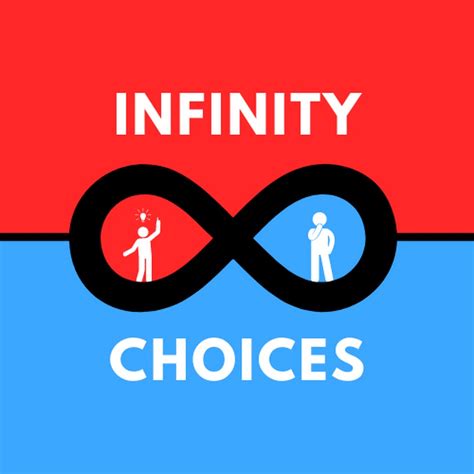
Infinity Logo Font: Top Choices
Hey guys! Ever looked at a brand’s logo and just felt that oomph ? You know, the one that makes it instantly recognizable and super memorable? A huge part of that magic is often the font choice. Today, we’re diving deep into the world of infinity logo fonts . We’ll explore why they’re so popular, what makes a font work for an infinity symbol, and share some of our absolute favorite picks that you can use to give your brand that timeless, elegant, or even futuristic vibe. Getting the right font isn’t just about making things look pretty; it’s about conveying a message, a feeling, and a story. The infinity symbol itself is loaded with meaning – think eternity, endlessness, empowerment, and everlasting love. So, when you pair it with the right font, you’re amplifying that message tenfold. Whether you’re designing a logo for a jewelry brand, a wellness service, a tech startup, or even a personal project, the font you choose will significantly impact how your audience perceives it. We’re going to break down what to look for, common pitfalls to avoid, and give you a solid list of go-to fonts that nail the infinity logo aesthetic. So grab your favorite beverage, get comfy, and let’s find that perfect font that screams ‘forever’!
Why Choose an Infinity Logo Font?
So, why is the infinity logo font such a big deal, you ask? Well, the infinity symbol, guys, is a universally recognized icon that carries a ton of weight. Its continuous loop represents endlessness, eternity, empowerment, and limitless possibilities . Think about it: this simple, elegant shape can convey concepts like everlasting love in a wedding logo, perpetual growth in a business, or boundless energy in a fitness brand. When you’re looking to imbue your brand with these powerful meanings, selecting the right font to complement the infinity symbol is absolutely crucial . A poorly chosen font can cheapen the symbol’s impact, making it look dated or unprofessional. On the other hand, a well-matched font elevates the symbol, creating a cohesive and compelling visual identity. It’s all about creating that instant connection and communicating your brand’s core values without saying a word. For instance, a sleek, modern sans-serif font can give an infinity logo a sophisticated and forward-thinking feel, perfect for a tech company. Conversely, a delicate script font might add a touch of romance and timelessness, ideal for a bridal boutique or a luxury spa. The font you choose acts as a silent narrator, whispering the story of your brand. It influences perception, builds trust, and helps you stand out in a crowded marketplace. We’re talking about creating a visual language that resonates with your target audience on a deeper level. It’s not just about aesthetics; it’s about strategic design choices that drive brand recognition and loyalty. The infinity logo font isn’t just a trend; it’s a timeless choice for brands that want to communicate enduring values and infinite potential. It’s a symbol that has transcended cultures and eras, and with the right typographic treatment, your logo can achieve the same lasting impact. So, when you’re in the process of branding, really think about the message you want to send and how typography can help you achieve that. The goal is to create something that feels both unique and universally understood, and the infinity symbol, paired with the perfect font, is a fantastic way to achieve that.
Key Elements of a Great Infinity Logo Font
Alright, let’s break down what makes an infinity logo font truly shine. It’s not just about picking something that looks cool; there are several key elements you need to consider to ensure your logo is effective and memorable. First up, clarity and legibility . No matter how fancy or artistic a font is, if people can’t read it easily, it’s a fail. This is especially important for logos that might be used at small sizes, like on business cards or app icons. The strokes need to be distinct, and the overall shape of the letters should be clear. Think about how the font interacts with the infinity symbol itself. Does it feel balanced? Does it enhance the symbol’s flow, or does it create a visual clash? We want harmony, guys! Next, consider the style and personality of the font. Does it align with your brand’s identity? If you’re a playful, energetic brand, a bold, rounded font might be perfect. If you’re aiming for sophistication and luxury, a clean, minimalist sans-serif or an elegant serif could be the way to go. The font should be an extension of your brand’s voice. We’re talking about a font that whispers elegance, shouts innovation, or embraces tradition, depending on your brand. Another critical factor is versatility . A great logo font needs to work across various mediums and applications. This means it should look good on digital platforms, print materials, merchandise, and even large-scale signage. Test it out in black and white, in different sizes, and on different backgrounds to ensure it holds up. You don’t want a font that looks amazing on your website but becomes illegible on a t-shirt, right? Uniqueness is also key. While you want your font to be legible and align with your brand, you also want it to stand out. Avoid overly common or generic fonts that might make your logo blend in with the competition. Look for fonts with subtle details or distinctive characteristics that give your logo a memorable edge. Finally, think about the symbol-font relationship . How do the curves of the infinity symbol play with the curves or sharp edges of the letters? Sometimes, a font with similar flowing lines can create a beautiful synergy. Other times, a contrasting font can create an interesting dynamic. It’s about finding that sweet spot where the font and the symbol enhance each other, creating a powerful and cohesive visual story. So, when you’re sifting through font options, keep these elements in mind. It’s a blend of art and science, and getting it right will make all the difference for your infinity logo font .
Top Font Categories for Infinity Logos
When you’re hunting for the perfect infinity logo font , it’s super helpful to think in categories. Different styles of fonts evoke different feelings and are suited for different types of brands. Let’s explore some of the most popular and effective categories, guys!
Sans-Serif Fonts: Modern & Clean
First up, we’ve got sans-serif fonts . These fonts are characterized by their lack of serifs (those little decorative strokes at the ends of letters). Think clean lines, minimalist design, and a very modern feel. Sans-serifs are fantastic for infinity logos because they often have a sleek, straightforward appearance that complements the elegant simplicity of the infinity symbol. They convey professionalism, efficiency, and approachability . Brands looking to project a contemporary image, like tech companies, startups, or modern wellness businesses, often gravitate towards sans-serifs. Imagine an infinity symbol paired with a font like Montserrat , Lato , or Open Sans . They create a sense of clarity and forward-thinking. They’re also incredibly versatile, looking sharp on screens, in print, and at any size. The geometric shapes in many sans-serifs can also echo the smooth curves of the infinity loop, creating a really cohesive look. If your brand is about innovation, directness, and a clean aesthetic, a sans-serif infinity logo font is definitely the way to go. It’s like a crisp, well-tailored suit for your brand – always in style and always makes a statement of competence. You can go with a bold, geometric sans-serif for a strong, impactful look, or a lighter, more humanist sans-serif for a friendlier, softer feel. The key is that it avoids fuss and gets straight to the point, much like the elegant, continuous line of the infinity symbol itself. It’s a go-to for a reason, offering a timeless appeal that doesn’t get bogged down by trends.
Serif Fonts: Classic & Elegant
Next, let’s talk about serif fonts . These are the ones with the little feet or decorative strokes – think Times New Roman or Garamond . Serif fonts exude a sense of tradition, sophistication, trustworthiness, and authority . They have a classic, timeless appeal that can lend a lot of gravitas to an infinity logo. If your brand is about heritage, luxury, or conveying a sense of established reliability, a serif font might be your perfect match. For an infinity logo, a serif font can add a touch of refined elegance. Imagine an infinity symbol paired with a font like Playfair Display , Merriweather , or Lora . These fonts have a certain je ne sais quoi that feels established and luxurious. They can make an infinity logo feel more formal and established, which is perfect for brands in the legal, financial, or high-end retail sectors. The serifs themselves can sometimes echo the delicate curves or points found in certain iterations of the infinity symbol, creating a subtle visual harmony. While sans-serifs are all about modernity, serifs speak of enduring quality and craftsmanship. They bring a sense of history and substance to the design. When choosing a serif font for your infinity logo, pay attention to the weight and style. A delicate, high-contrast serif can feel very luxurious, while a more robust, traditional serif can convey strength and reliability. It’s all about striking that balance to ensure the font complements, rather than competes with, the infinity symbol. A well-chosen serif infinity logo font can make your brand feel instantly more established and credible, offering a comforting sense of permanence that aligns beautifully with the symbol’s meaning.
Script Fonts: Personal & Flowing
Now, for something a bit more expressive: script fonts . These fonts mimic handwriting and cursive, and they bring a unique sense of personal touch, artistry, and elegance . Script fonts are amazing for infinity logos when you want to convey warmth, intimacy, or a handcrafted feel. Think about wedding invitations, artisanal products, or personal brands – script fonts just work . They have a natural flow and movement that can beautifully complement the continuous loop of the infinity symbol. Imagine an infinity symbol paired with a flowing script like Great Vibes , Allura , or Dancing Script . These fonts can add a touch of romance, creativity, or a friendly, approachable vibe. They make the logo feel more human and less corporate. However, with script fonts, legibility is super important, guys. Some scripts can be quite elaborate and hard to read, especially at smaller sizes. You need to find a balance between artistic flair and clarity. Look for scripts that have a clear, flowing character without being overly ornate. They should feel natural and effortless, like a signature. A script infinity logo font can be perfect for brands that want to emphasize personal connection, creativity, or a touch of luxury that feels more intimate. They add a layer of personality that blockier fonts might not achieve. It’s like giving your brand a personal handshake and a warm smile. The fluidity of script fonts can also visually enhance the endless nature of the infinity symbol, creating a truly captivating and elegant mark. Just be sure to test it thoroughly to ensure it reads well across all applications!
Decorative & Display Fonts: Bold & Unique
Finally, we have decorative or display fonts . These are the fonts that are designed to make a statement. They are often highly stylized, unique, and meant for use in headlines or logos where they can really grab attention. When it comes to an infinity logo font , decorative fonts can be incredibly powerful for creating a unique and memorable brand identity. They can range from vintage-inspired scripts to futuristic, geometric designs, or even fonts with unique textures and embellishments. The key here is impact and memorability . These fonts are all about personality and standing out from the crowd. Think of fonts that have a very specific aesthetic – perhaps a retro vibe, a futuristic sci-fi feel, or an artsy, hand-drawn quality. They are perfect for brands that want to be bold, unconventional, and leave a strong impression. For instance, a geometric display font with sharp angles could contrast interestingly with the smooth curves of an infinity symbol, creating a modern, edgy look. Or a vintage-inspired font could give an infinity logo a sense of timeless charm and nostalgia. However, similar to script fonts, legibility can be a challenge with some decorative fonts. They are often more about visual impact than reading lengthy text. You need to be discerning and ensure that the font, while unique, still allows the infinity symbol and any accompanying text to be easily recognized. It’s essential that the decorative element enhances the infinity concept rather than obscuring it. A well-chosen decorative infinity logo font can make your brand instantly recognizable and give it a distinctive personality that truly sets it apart. It’s the font equivalent of a statement piece of jewelry – eye-catching and full of character.
Tips for Choosing Your Infinity Logo Font
So, you’ve got a better grasp of the different font styles out there for your infinity logo font . Now, let’s talk practical tips to help you make the perfect choice. Choosing a font isn’t just about personal preference; it’s a strategic decision that impacts your brand’s perception. Guys, trust me on this one, taking a little extra time here will save you headaches down the line.
Consider Your Target Audience
First and foremost, always consider your target audience . Who are you trying to reach with your brand? Are they young and trendy, or more mature and traditional? Do they value luxury, affordability, or innovation? The font you choose should resonate with them. A font that appeals to teenagers might not be the best fit for a luxury financial service, and vice versa. Think about the psychological impact of different fonts. For example, rounded fonts often feel friendlier and more approachable, while sharp, angular fonts can convey power and dynamism. If your audience appreciates elegance and sophistication, you’ll want to lean towards classic serifs or refined sans-serifs. If they’re looking for something cutting-edge and exciting, bolder, more modern display fonts might be the ticket. Your infinity logo font is a key communication tool, and it needs to speak their language. Research your audience, look at brands they admire, and choose a font that aligns with their aesthetic preferences and values. It’s about creating an instant connection and making them feel understood. This step is non-negotiable, guys; it’s the foundation of good branding.
Test, Test, and Test Again!
Seriously, guys, test your chosen font extensively . Don’t just pick a font you like on your screen and call it a day. Mock up your logo with the infinity symbol and the font in various sizes and contexts. How does it look on a tiny favicon? How about on a large banner? Does it remain legible in black and white? What about on a colored background? Some fonts that look great in large sizes can become completely unreadable when scaled down, and others might lose their impact when flattened into a single color. Use online tools or design software to create mockups. Print out your logo designs and look at them in person. Ask for feedback from others, especially people who represent your target audience. A font might look perfect to you, but it might not convey the right message to potential customers. Pay attention to how the spacing between letters (kerning) and lines (leading) looks. Sometimes, a few minor adjustments can make a world of difference. Remember, the goal is for your infinity logo font to be effective everywhere your brand appears. Thorough testing ensures you won’t encounter any nasty surprises later on.
Ensure Font Licensing is Clear
This is a biggie, especially if you’re building a business: always ensure you have the correct font licensing . Many fonts, especially free ones, come with specific usage restrictions. Some are free for personal use only, while others allow commercial use but might require attribution or a paid license for certain applications (like use in a logo for a business). Using a font illegally can lead to legal trouble, hefty fines, and damage to your brand’s reputation. Before you commit to a font for your infinity logo, check its license agreement carefully. Websites like Google Fonts offer free, open-source fonts with very permissive licenses. For premium fonts, purchase them directly from the font foundry or reputable marketplaces. If you’re unsure about the licensing terms, don’t hesitate to contact the font designer or vendor for clarification. It might seem like a small detail, but proper licensing is crucial for protecting your business and ensuring you have the legal right to use the font in your branding. Think of it as protecting your brand’s future. Getting the licensing right from the start means you can use your infinity logo font with confidence, knowing you’re covered legally.
Keep It Timeless
While it’s tempting to jump on the latest typographic trends, strive for timelessness in your infinity logo font choice. Trends come and go, but a good logo should last for years, if not decades. A font that feels cutting-edge today might look dated in a few years. The infinity symbol itself is timeless, so pairing it with a font that also has enduring appeal will create a logo that remains relevant and impactful over time. Classic sans-serifs, elegant serifs, and well-crafted script fonts often have a longer shelf life than overly stylized or trendy display fonts. Ask yourself: Will this font still look good in 5, 10, or even 20 years? If the answer is uncertain, it might be worth exploring other options. A timeless font choice ensures that your brand identity remains strong and consistent, avoiding the need for frequent, costly logo redesigns. It builds brand equity and recognition over the long haul. Aim for a design that feels classic yet contemporary, striking a balance that allows it to age gracefully. This thoughtful approach to font selection contributes significantly to a brand’s enduring legacy.
To give you some concrete ideas, let’s look at some real-world examples and font styles that work exceptionally well for infinity logos. These aren’t just random picks; they’ve been chosen because they either complement the symbol’s meaning, enhance its visual appeal, or offer that perfect blend of style and legibility we talked about, guys!
Minimalist Sans-Serifs
When you want your infinity symbol to speak volumes with subtle elegance, minimalist sans-serifs are your best bet. Think clean, uncomplicated lines that let the symbol itself take center stage. Fonts like Lato , Montserrat , and Open Sans are fantastic examples. They offer excellent readability and a modern, approachable feel. For an infinity logo, these fonts create a sense of clarity and efficiency. Imagine an infinity symbol rendered in a light or regular weight of Lato, paired with the brand name. It feels clean, professional, and trustworthy – perfect for wellness brands, tech startups, or businesses focused on simplicity and directness. Montserrat , with its geometric construction, can give the logo a slightly more structured, urban feel. Open Sans is known for its neutral, highly legible appearance, making it a safe and effective choice for almost any application. The beauty of these minimalist sans-serifs is their versatility; they don’t overpower the infinity symbol but rather support it, creating a harmonious and timeless mark. They convey that your brand is modern, no-nonsense, and focused on delivering value. It’s the typographic equivalent of a perfectly brewed cup of coffee – simple, essential, and deeply satisfying.
Elegant Serifs
For brands aiming for a touch of luxury, tradition, or timeless sophistication, elegant serif fonts are a superb choice. These fonts add a layer of refinement and gravitas. Consider fonts like Playfair Display , Lora , or Garamond . Playfair Display , with its high contrast between thick and thin strokes, lends a very luxurious and classic feel, ideal for jewelry brands or high-end fashion. Imagine it paired with a delicate infinity symbol – it screams opulence and timeless style. Lora offers a more contemporary take on serif, balancing tradition with a modern sensibility, making it suitable for lifestyle brands or editorial content. Garamond , a classic for centuries, brings an air of established authority and intellectual depth, fitting for educational institutions or heritage brands. These serif fonts can make an infinity logo feel more grounded, reliable, and sophisticated. They communicate a sense of heritage, quality craftsmanship, and enduring value, aligning perfectly with the eternal nature of the infinity symbol. They are the typographic equivalent of a perfectly aged wine – rich, complex, and full of character.
Flowing Scripts
If your brand identity is built around personal connection, romance, or artistic expression, flowing script fonts can be incredibly effective. They add warmth and a unique personality. Take Great Vibes , Allura , or Dancing Script as examples. Great Vibes has a beautiful, elegant flow that’s perfect for wedding planners, calligraphy artists, or luxury gift companies. It evokes romance and bespoke craftsmanship. Allura is another popular choice, offering a slightly more modern and clean script feel, yet still maintaining that personal, flowing quality. Dancing Script is a bit more playful and casual, suitable for brands that want to convey a friendly, approachable, and creative vibe. When using a script infinity logo font , make sure the readability is maintained. The goal is to enhance the infinity symbol with a sense of movement and personal touch, not to make it hard to read. These fonts are fantastic for brands that want to feel intimate, handcrafted, and emotionally resonant. They’re like a handwritten note from a friend – warm, personal, and full of heart.
Unique Display Fonts
Finally, for brands that want to make a bold statement and truly stand out, unique display fonts offer endless possibilities. These are fonts that are designed to be noticed. Think fonts with distinctive character, perhaps a retro flair, a futuristic edge, or an artistic twist. Examples could range from bold, geometric display fonts to custom-designed lettering. A display font can help define a brand’s niche and personality immediately. For instance, a brand focused on extreme sports might use a rugged, impactful display font, while a futuristic tech company might opt for a sleek, angular font. The key is to ensure the display font complements the infinity symbol’s shape and meaning, rather than competing with it. It should add character and memorability without sacrificing legibility entirely. These fonts are often used when the logo needs to be highly distinctive and memorable, perhaps for a creative agency, a festival, or a product with a very specific target market. They are the visual equivalent of a loud, confident declaration – impossible to ignore and full of personality. They ensure your infinity logo font becomes a conversation starter.
Conclusion: Finding Your Perfect Infinity Font
So there you have it, guys! We’ve journeyed through the world of infinity logo fonts , exploring why they’re such a powerful choice for brands and diving into the different font categories that can bring the symbol to life. Remember, the infinity symbol itself is packed with meaning – eternity, empowerment, endless love, limitless potential . Your font choice is the key to amplifying that message and connecting with your audience on a deeper level.
Whether you lean towards the clean, modern vibe of sans-serifs , the classic elegance of serifs , the personal touch of scripts , or the bold impact of display fonts , the most important thing is alignment . Does the font reflect your brand’s personality? Does it speak to your target audience? Is it legible and versatile across different platforms?
Key takeaways to remember:
• Clarity is king: Always prioritize legibility.
• Brand alignment: The font must match your brand’s identity and values.
• Audience focus: Choose a font that resonates with your ideal customer.
• Test thoroughly: Mock it up everywhere before you commit.
• Aim for timelessness: Avoid fleeting trends for lasting impact.
Finding the perfect infinity logo font is an exciting part of building your brand. It’s about creating a visual identity that is not only beautiful but also meaningful and enduring. Take your time, experiment, and trust your instincts. The right font will make your infinity logo unforgettable. Happy designing!